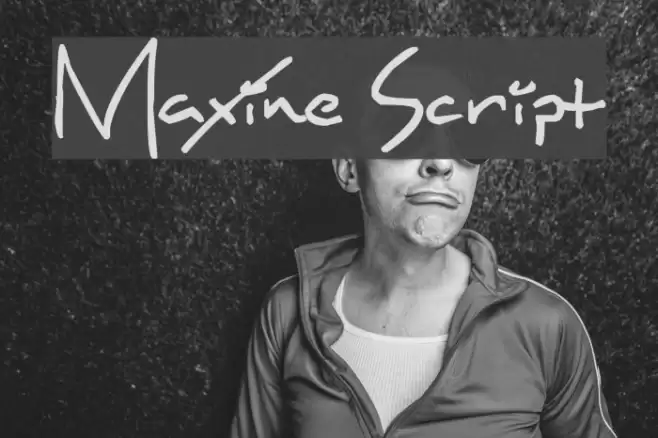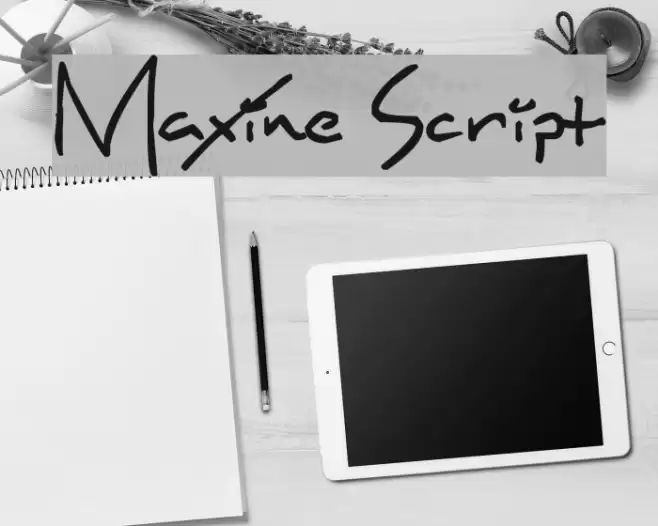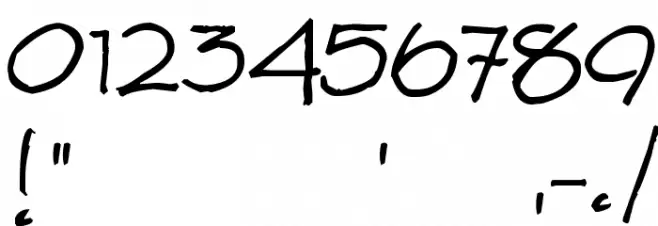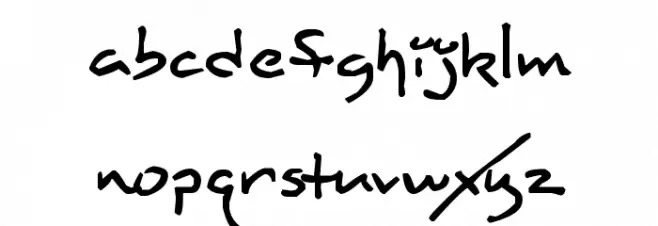
Maxine Script Font
Maxine Script Description
This font exudes a lively and dynamic character with its handwritten style, featuring fluid and slightly irregular strokes that mimic natural handwriting. The uppercase letters are bold and expressive, while the lowercase letters maintain a consistent flow, adding a personal touch to any text. The numerals are clear and legible, complementing the overall style. Special characters are thoughtfully designed to match the font's energetic vibe. This font is perfect for projects that require a personal, informal, and approachable feel.
A lively, handwritten font with fluid strokes and a personal touch from Handwritten fonts.
- Proposed Projects: Ideal for greeting cards, invitations, personal branding, and creative projects that require a handwritten feel.
- Use Case: Logos, Headlines, Creative projects